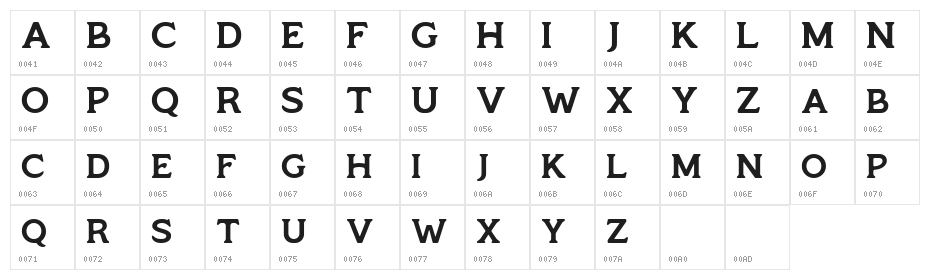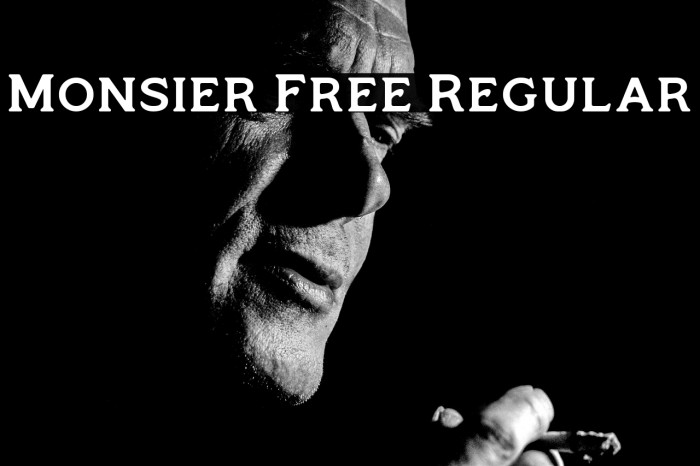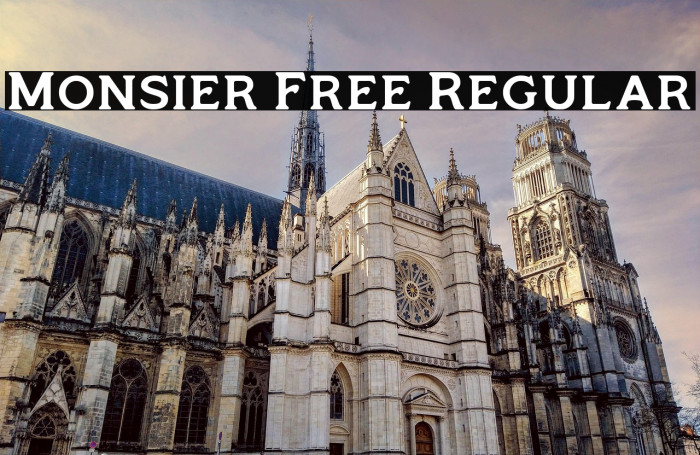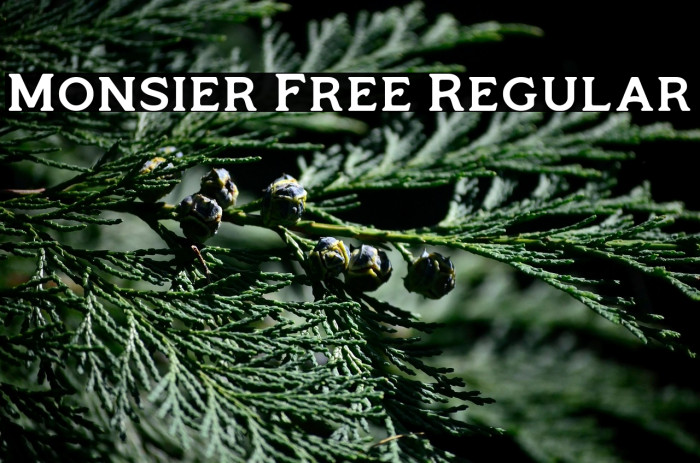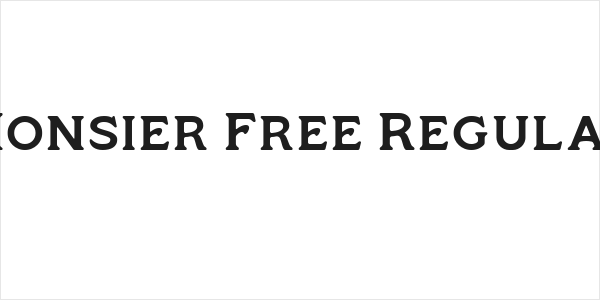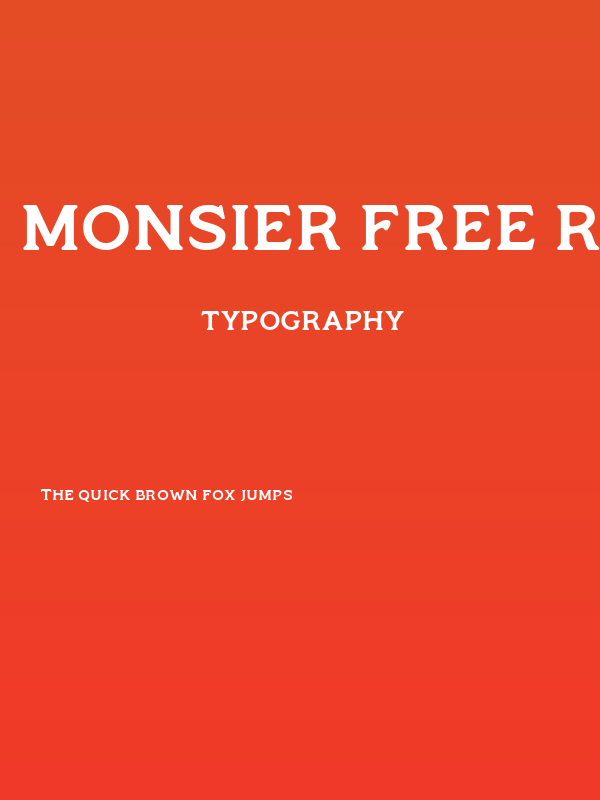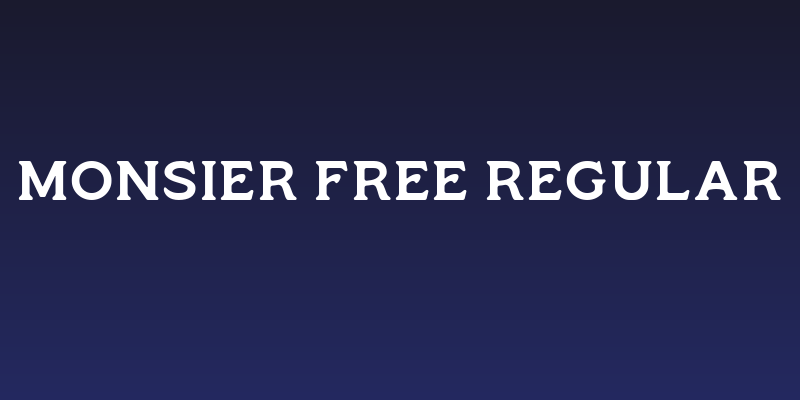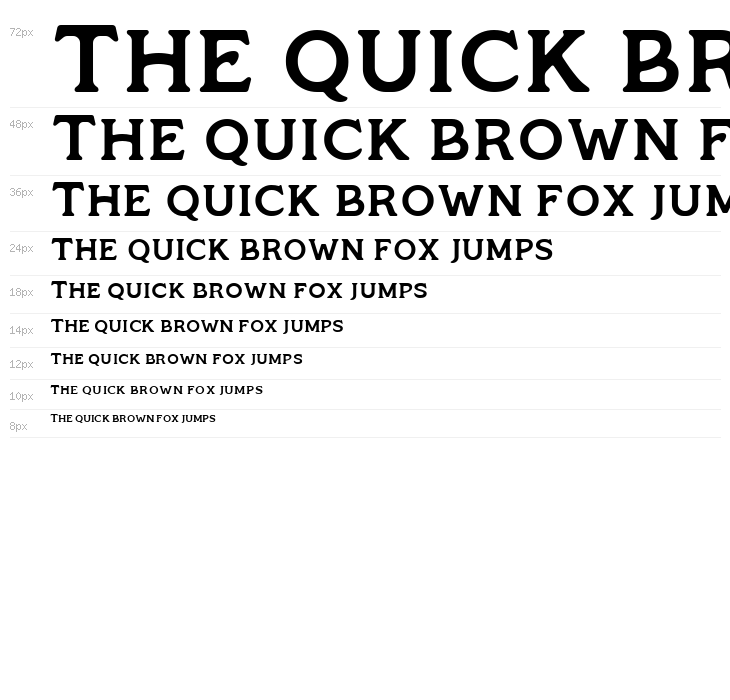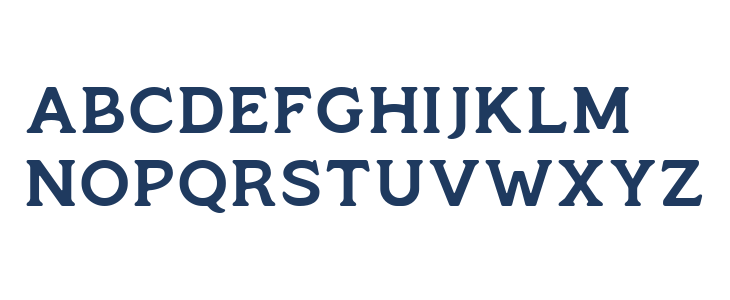
Monsier Free Regular Font
Monsier Free Regular Description
This font features a classic serif style with a modern twist. The characters are well-defined with a medium contrast between thick and thin strokes, giving it a sophisticated and elegant appearance. The serifs are pronounced yet not overly ornate, providing a balance between readability and style. The overall design is clean and versatile, making it suitable for a variety of applications. The spacing between characters is normal, ensuring clarity and legibility in both print and digital formats.
| Overall Style | Classic |
| Use Case | Headlines, Body text, Logos |
| Proposed Projects | Ideal for editorial design, book covers, formal invitations, and branding projects. |